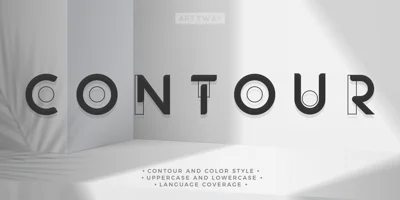
Contourism Font
This dimensional typeface is perfect for travel agencies, topographical mapping services, adventure tourism companies, hiking equipment brands, mountain rescue services, geological surveys, outdoor navigation apps, expedition planners, landscape photography, terrain analysis software, elevation mapping, and geographic information systems. The font's contoured design makes it ideal for projects that celebrate exploration, terrain navigation, and the artistic beauty of topographical landscapes with precise dimensional representation.
Contourism Font is exciting because it embodies dimensional exploration and geographical precision through its layered letterforms and contour-inspired character structure. The font's elevation lines and topographical proportions create an atmosphere of adventure, scientific accuracy, and three-dimensional understanding, making it perfect for brands that want to convey expertise, exploration spirit, and the ability to navigate complex terrain. Its dimensional personality ensures instant recognition while maintaining excellent readability across various mapping applications.
The Contourism Font family includes multiple elevation variations: Light Valley, Regular Hill, Medium Mountain, Bold Peak, and Black Summit weights, each available in standard and layered versions. Special topographical editions feature contour alternates, elevation symbols, and mapping ornaments that enhance the font's geographical appeal, providing designers with comprehensive tools for creating authentic terrain-focused communications.
Navigate dimensional design with Contourism Font – a typeface that represents exploration excellence and topographical precision. Whether you're developing adventure tourism branding, mapping applications, or outdoor equipment marketing campaigns, this font delivers the dimensional accuracy and exploratory spirit your projects need while ensuring exceptional performance and terrain-mapping impact across all geographical and adventure applications.